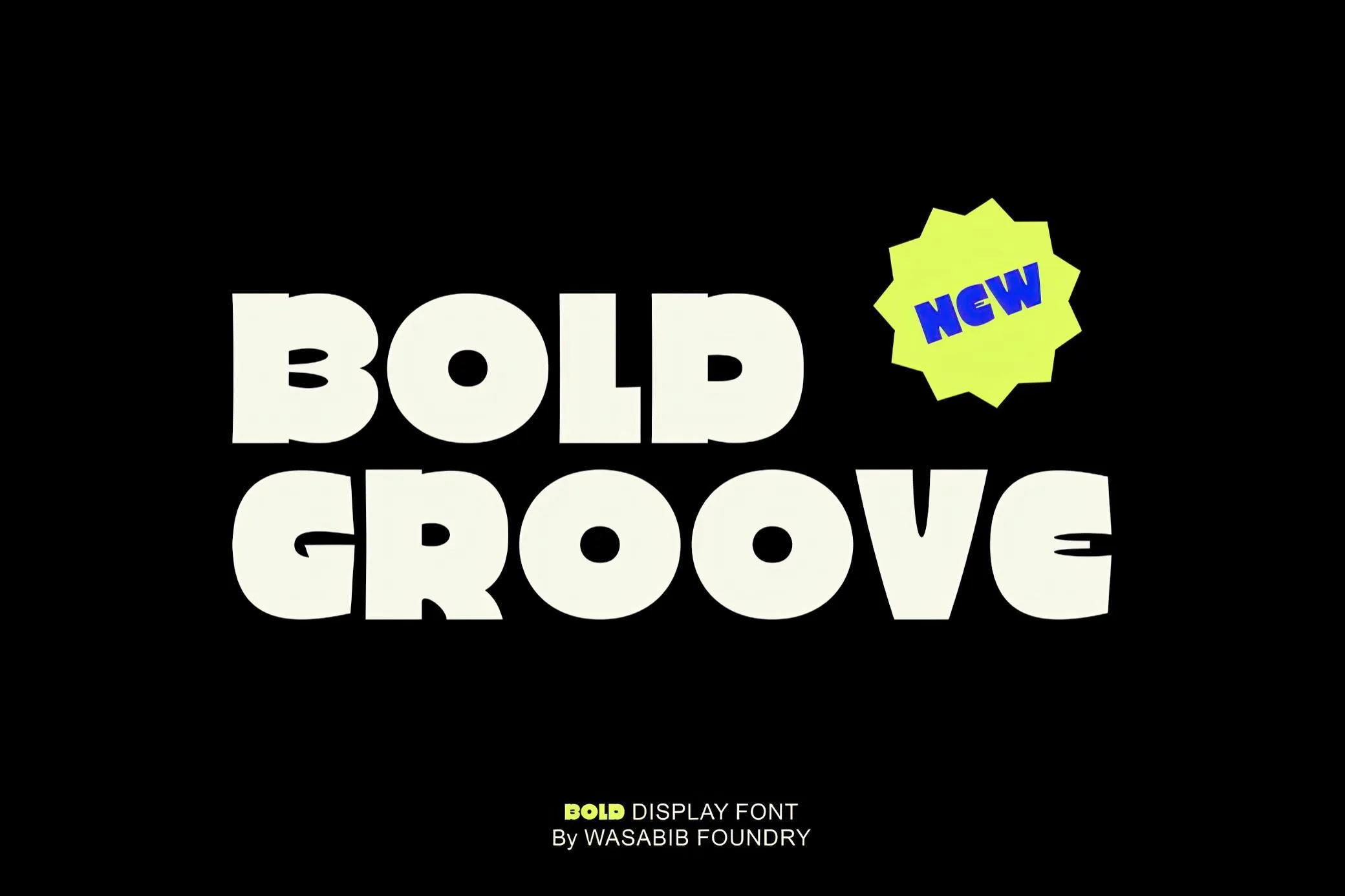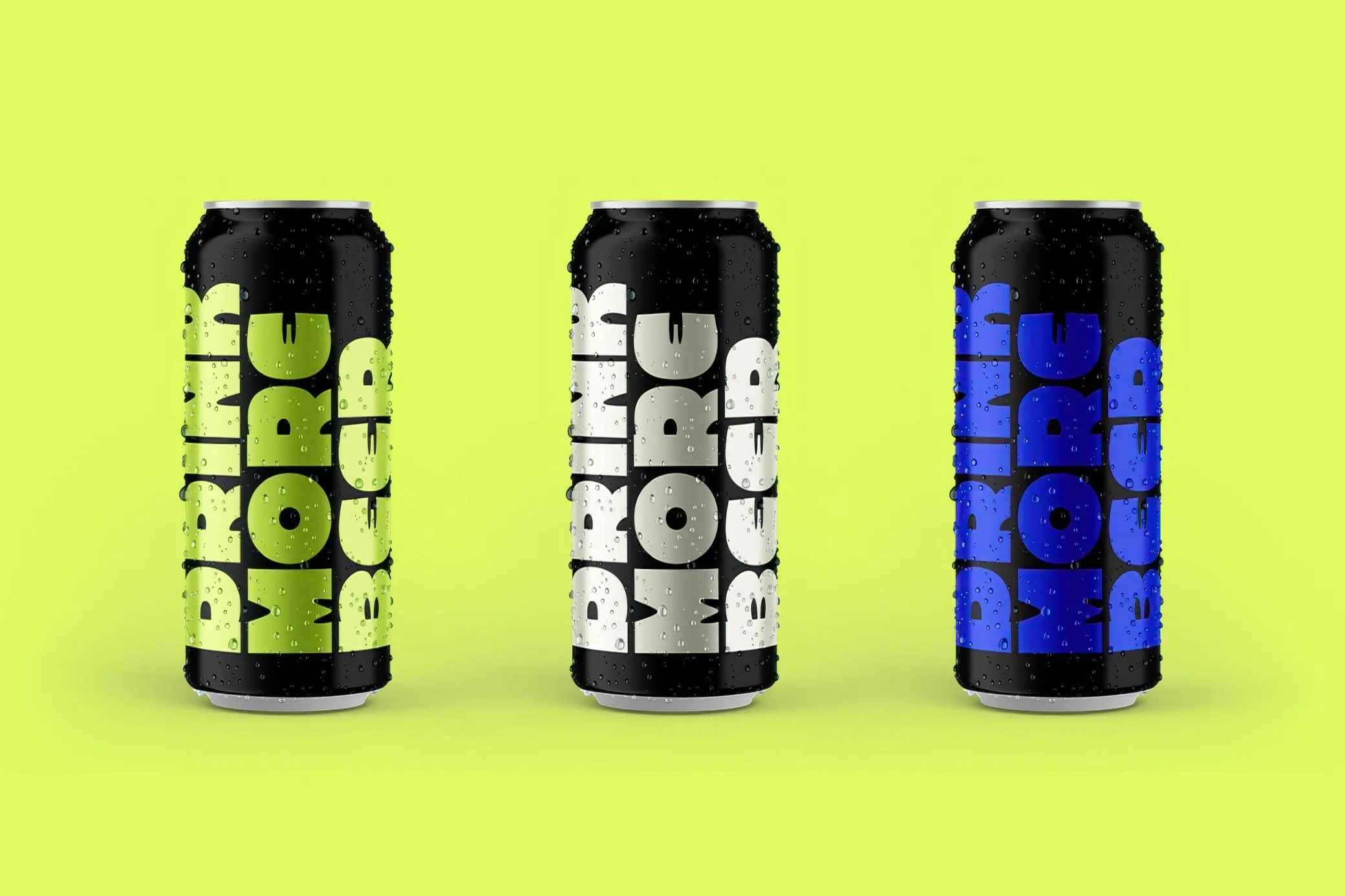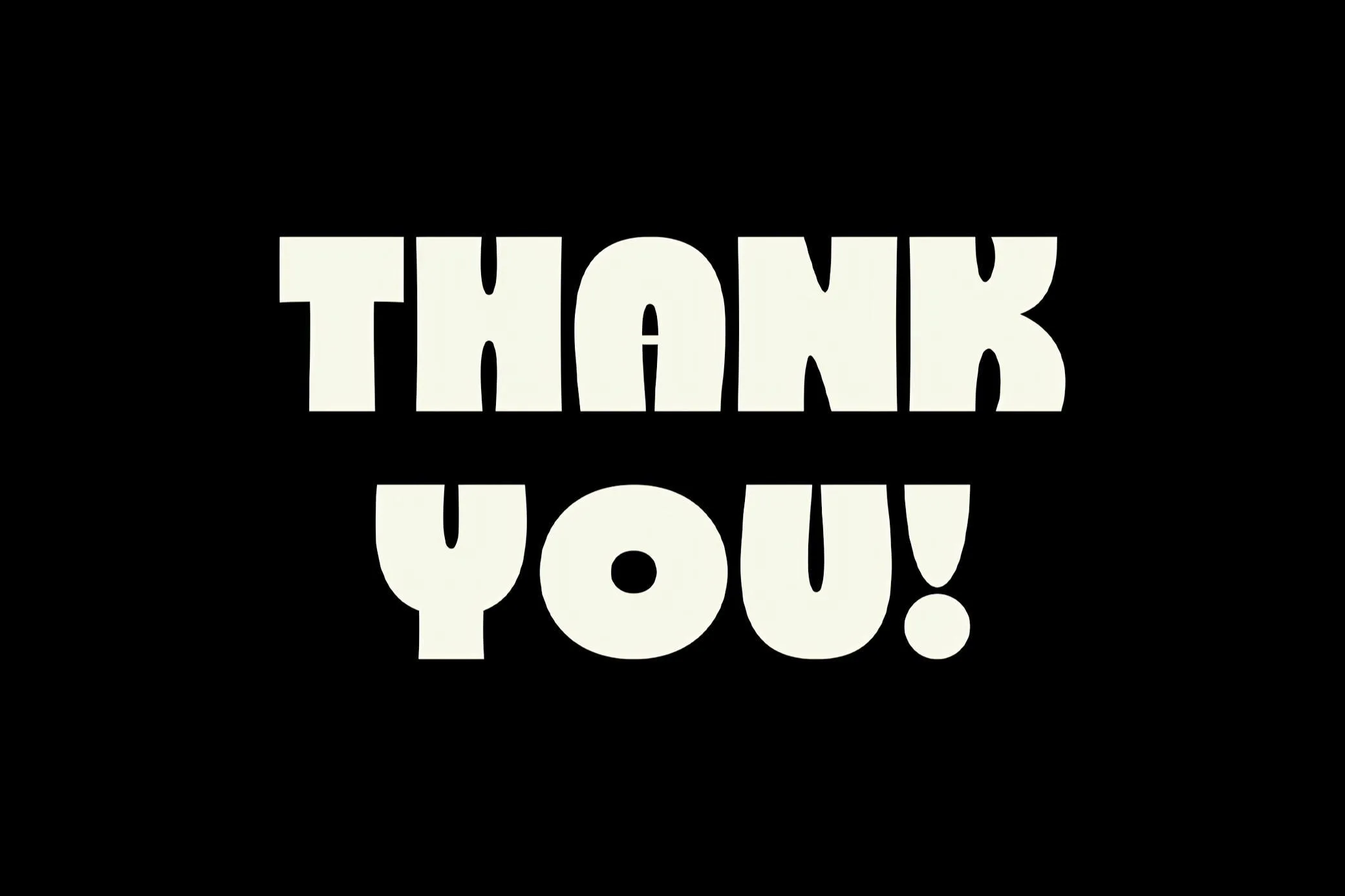
Say hello to WTF Bold Groove, a fearless free display font that doesn’t hold back. This all-caps stunner brings a punchy mix of retro charm and bold personality, making it a top pick for attention-grabbing headlines, poster designs, branding projects, and more. Whether you’re shouting your message from a billboard or adding flair to your streetwear label, this font brings groove and grit in equal measure.
Every letter in WTF Bold Groove is designed to stand tall and proud—with thick strokes, clean edges, and a rhythm that feels like funk, rebellion, and style all rolled into one. And it’s not just letters: this font also includes numbers, punctuation, and multilingual support, so your message gets heard around the globe—loud and clear.
Perfect For:
Streetwear branding and logos
Retro-style Flyers
Music cover art or album visuals
YouTube thumbnails and video intros
Editorial titles and magazine layouts
Skate, surf, or punk culture visuals
Meme-style merch and creative quotes
Whether you’re a graphic designer building loud compositions or a small brand looking for a typeface that doesn’t whisper, WTF Bold Groove is ready to shout your message with confidence. It has that “in-your-face” vibe but keeps its look neat and polished—making it a go-to font when you need to be bold without sacrificing style.